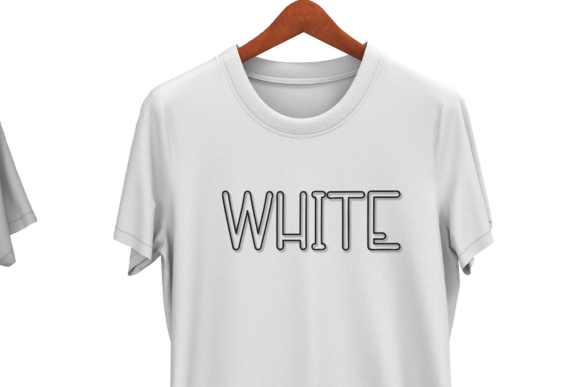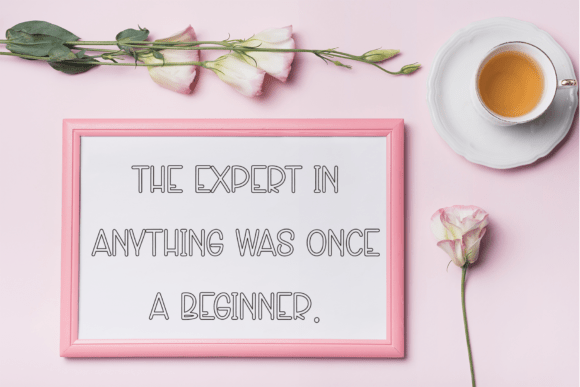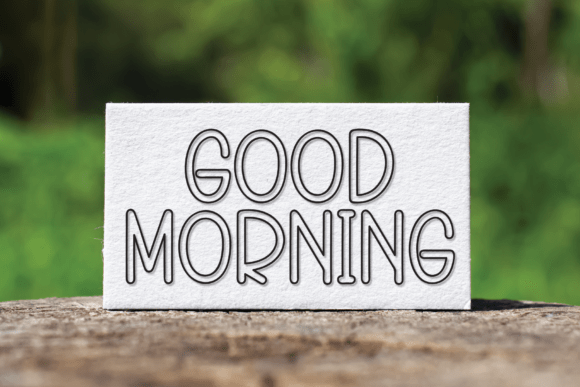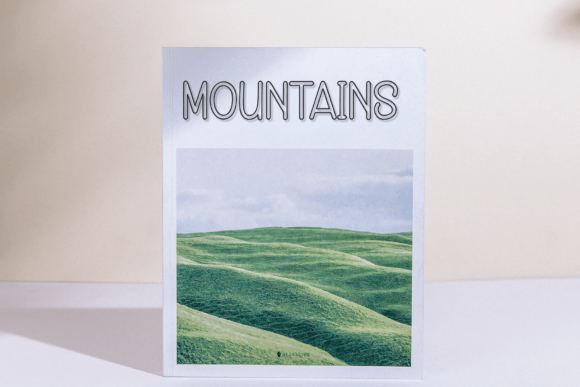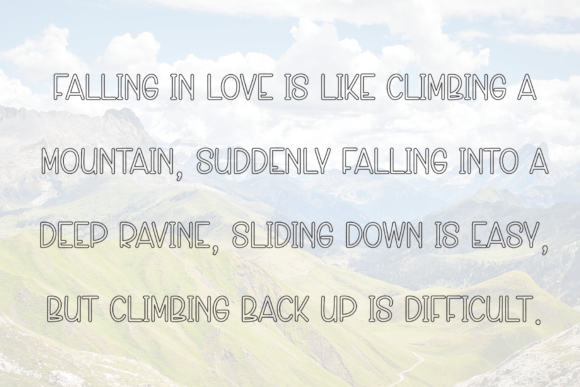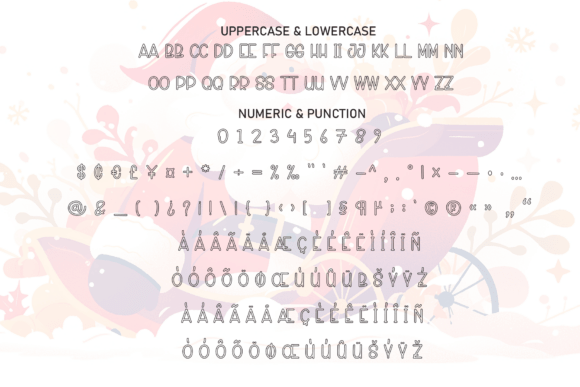
Introduction to Santa Whimsy Font
Do you remember that moment when you stumble upon a design element that sparks your creativity and sets your imagination ablaze? For many designers, that moment is a treasure to cherish. It’s the moment when a seemingly ordinary project transforms into an extraordinary experience, all thanks to the perfect font. And that’s exactly what we’re excited to introduce you to – the enchanting Santa Whimsy Font. This delightful font is a treasure trove of creative possibilities, designed to add a touch of whimsy to your designs.
| 👤 Author | Roronoa zoro.S.P.D |
Whether you’re a seasoned designer or a beginner looking to elevate your creative projects, the Santa Whimsy Font is an invaluable resource. Its high-quality design and versatility make it perfect for a wide range of applications, from social media posts to wedding invitations, and even product packaging. With its transparent background and free download option, you can effortlessly incorporate this font into your next project, giving it a unique and eye-catching touch.
Key Features of Santa Whimsy Font
- Unique, whimsical design perfect for creative projects and holiday-themed designs.
- High-quality font with a transparent background, allowing for easy layering and composition.
- Perfect for use in graphic design, digital art, and other creative projects where a playful, festive feel is desired.
- Includes a range of characters, including uppercase and lowercase letters, numbers, and punctuation marks, making it a versatile design resource.
Honest Review: Santa Whimsy Font
I recently came across the Santa Whimsy Font while searching for a design resource to add a festive touch to my holiday project. I was immediately drawn to its playful and whimsical feel, making it perfect for a creative project like this.
Here’s what works well about the Santa Whimsy Font: ✨ It’s highly customizable, allowing you to adjust the size and color to fit your design needs. The font is also free to download, making it a great option for designers on a budget. Additionally, the transparent background makes it easy to overlay on top of other images or graphics.
Some limitations I’ve noticed with the Santa Whimsy Font: ⚠️ The font is only available in a limited range of weights, which may not be ideal for designers who need more flexibility. Additionally, the font may not be suitable for formal or professional designs, as its playful feel may come across as unprofessional.
Overall, I’m impressed with the Santa Whimsy Font and would definitely recommend it for designers working on holiday-themed projects. It’s a great high quality design resource that’s easy to use and customize.
The Santa Whimsy Font is ideal for:
- Creating festive and holiday-themed designs
- Designing children’s products and educational materials
- Adding a touch of whimsy to your branding and marketing materials